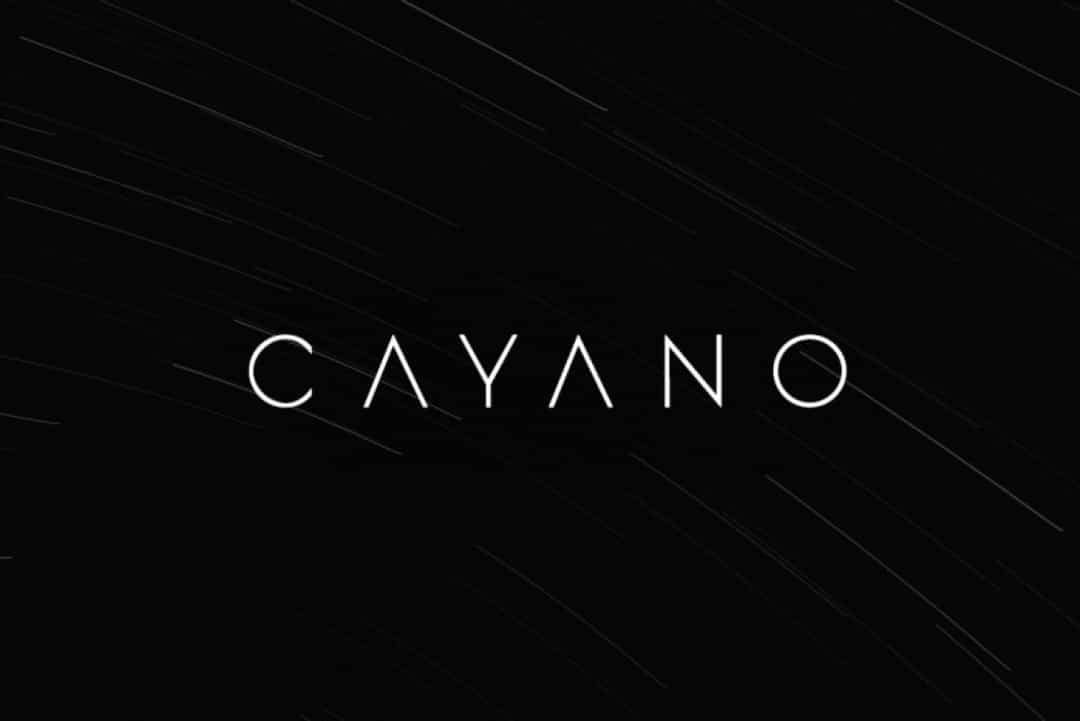
Cayano is an elegant sans-serif font designed to fit into a wide variety of projects easily, so use it in your creative inspiration for maximum effect and see how quickly they blossom!